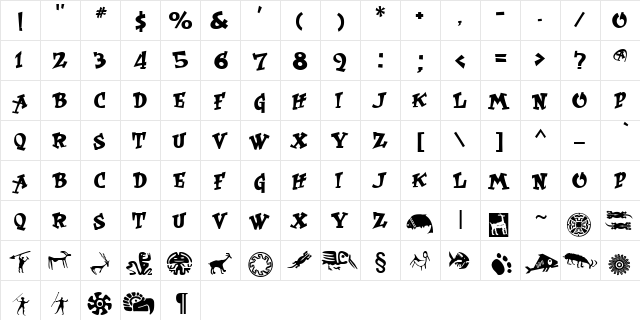
RockArt Normal
Design Context for RockArt Typeface
RockArt is a composed and adaptable typeface that performs quietly and consistently across a wide range of design contexts.